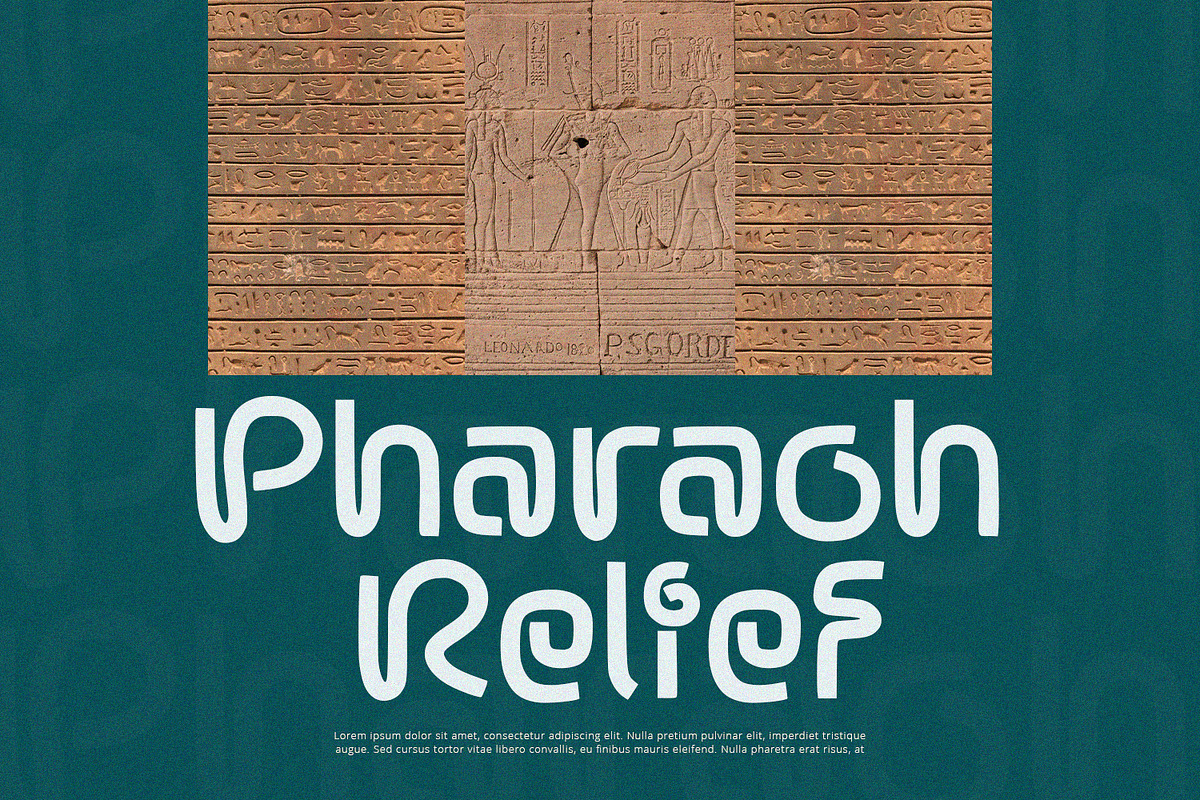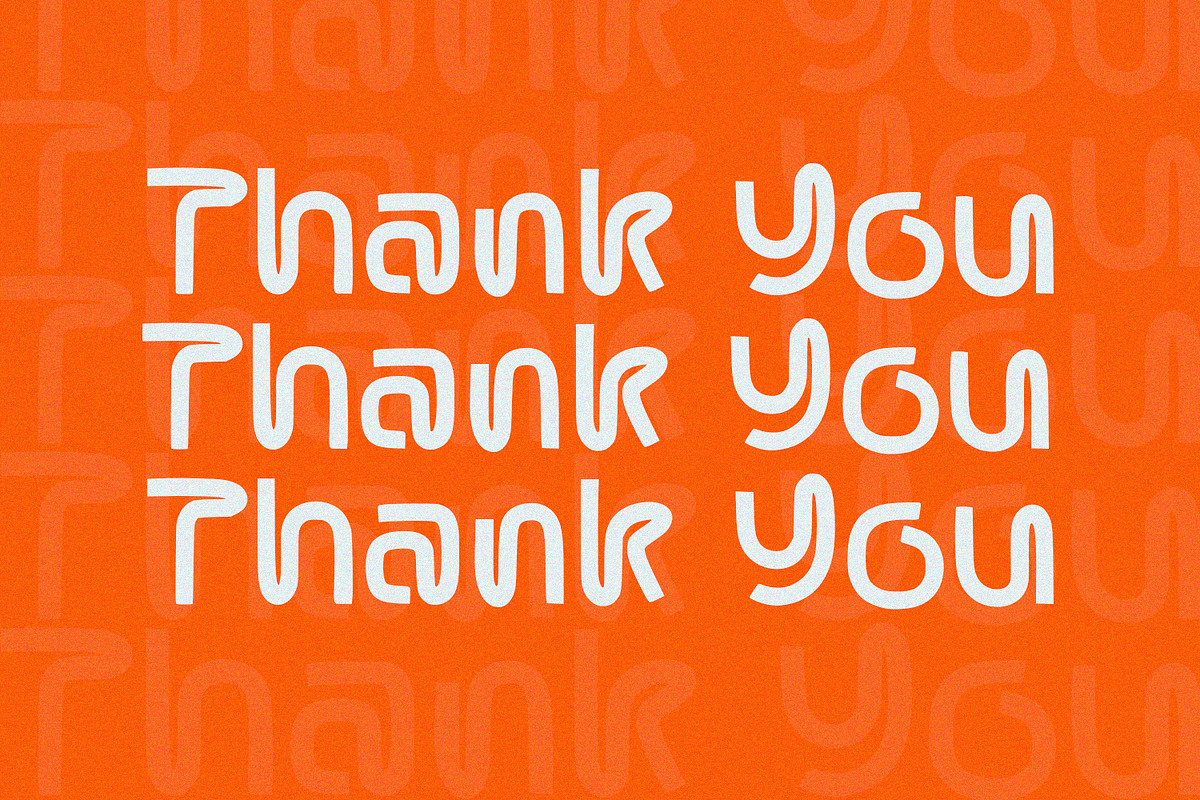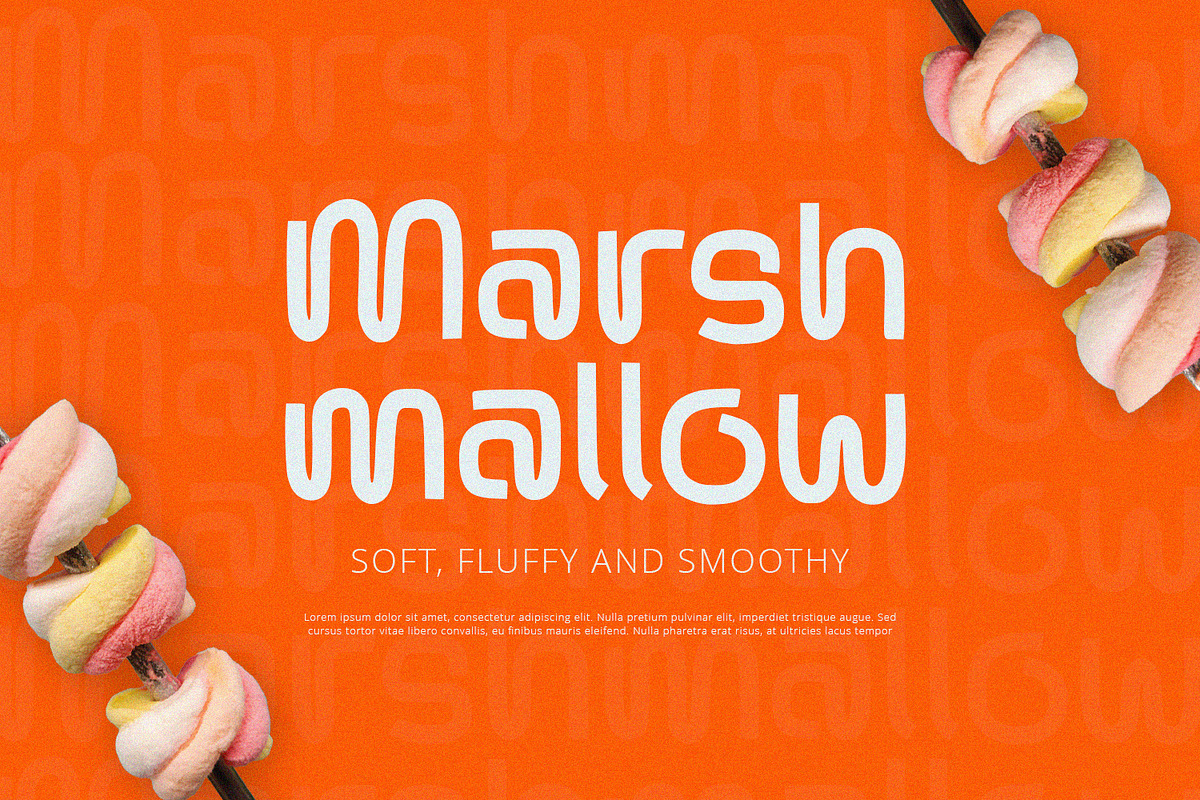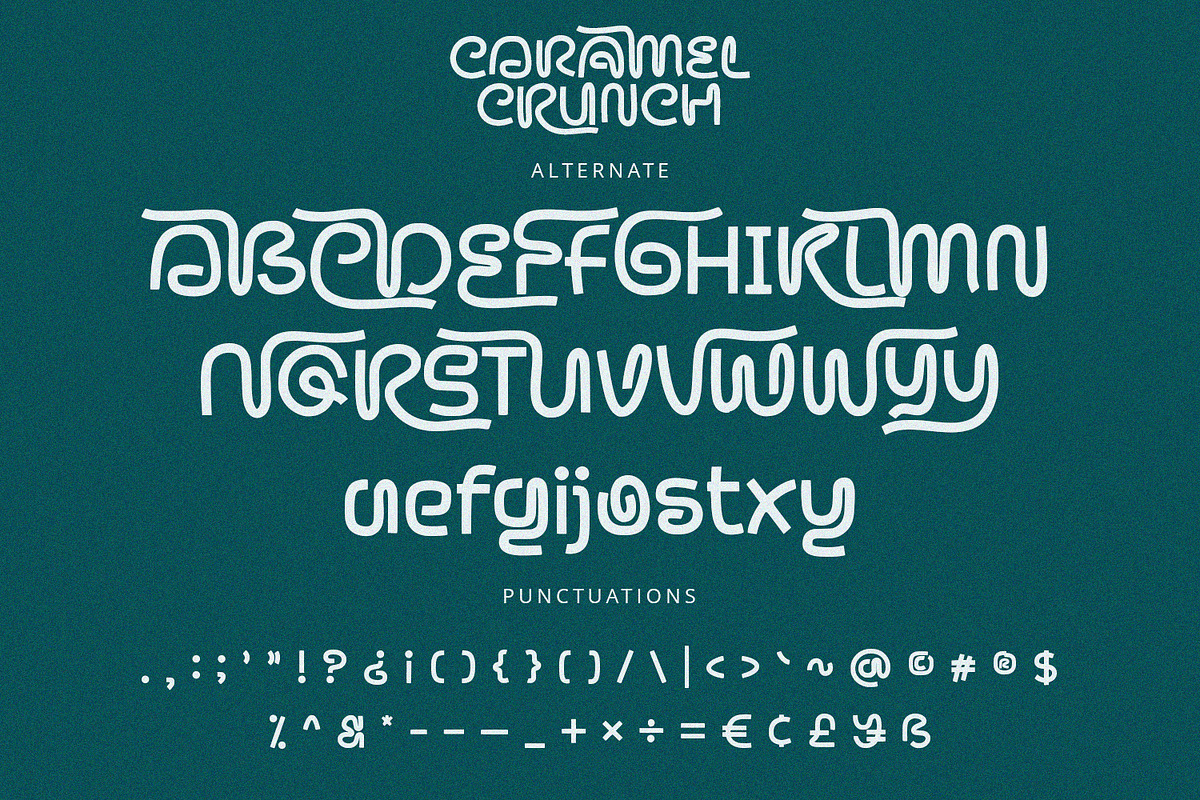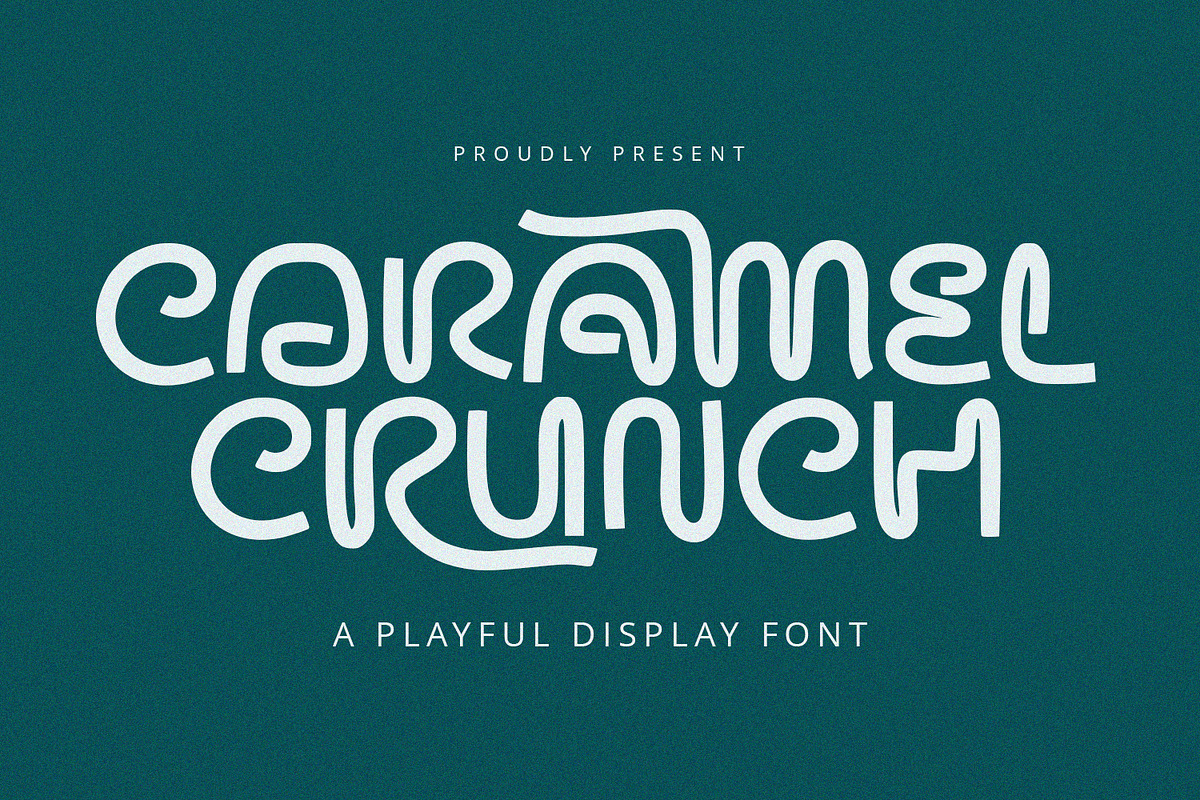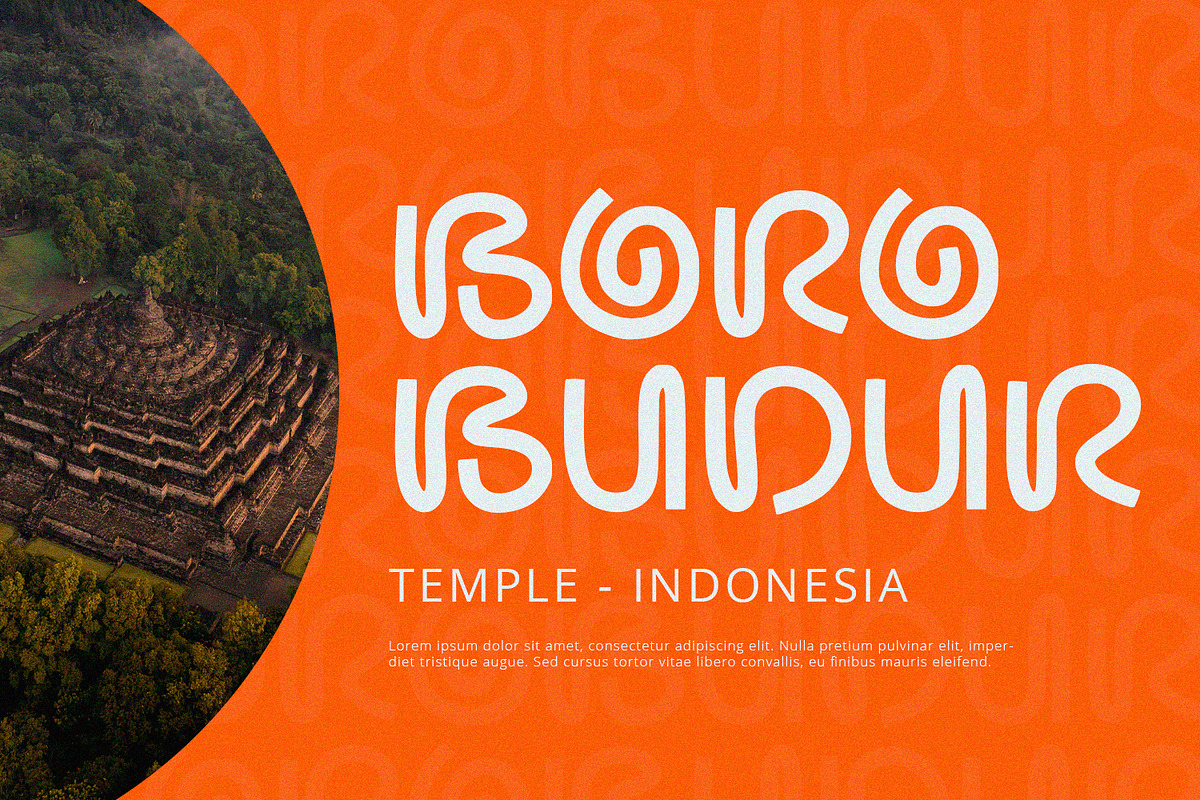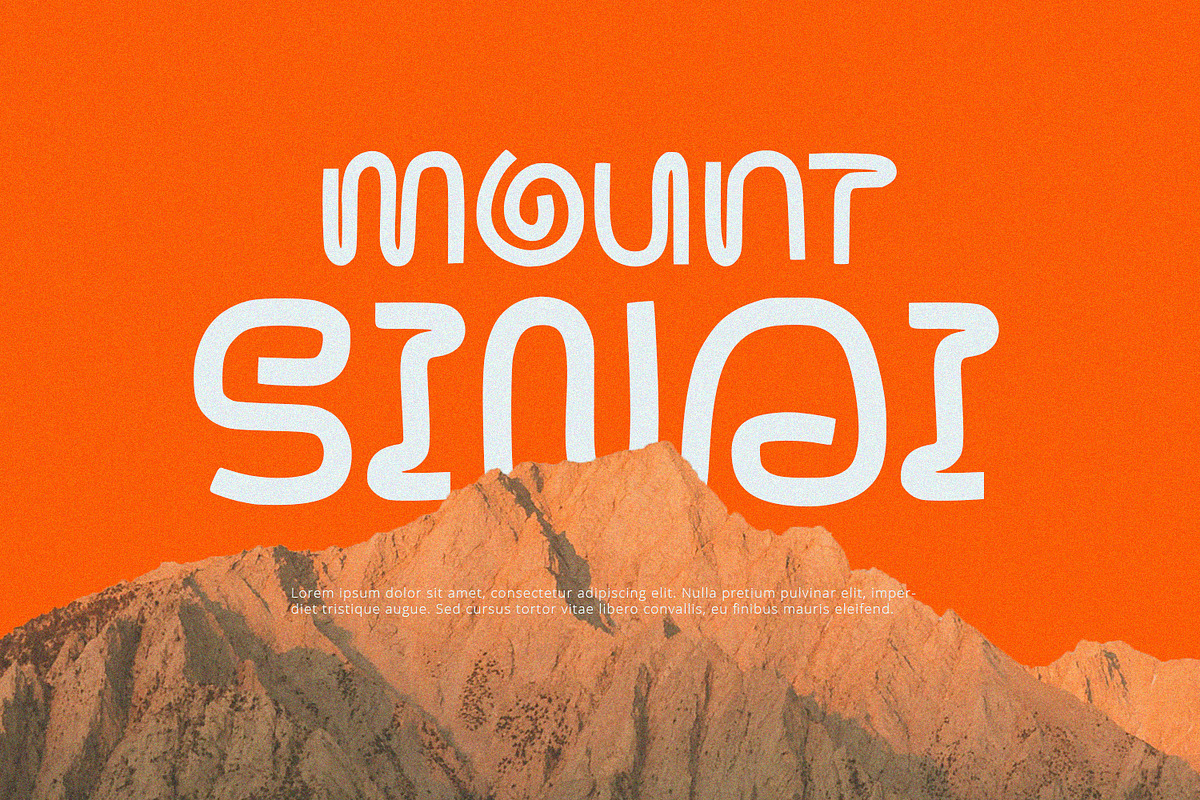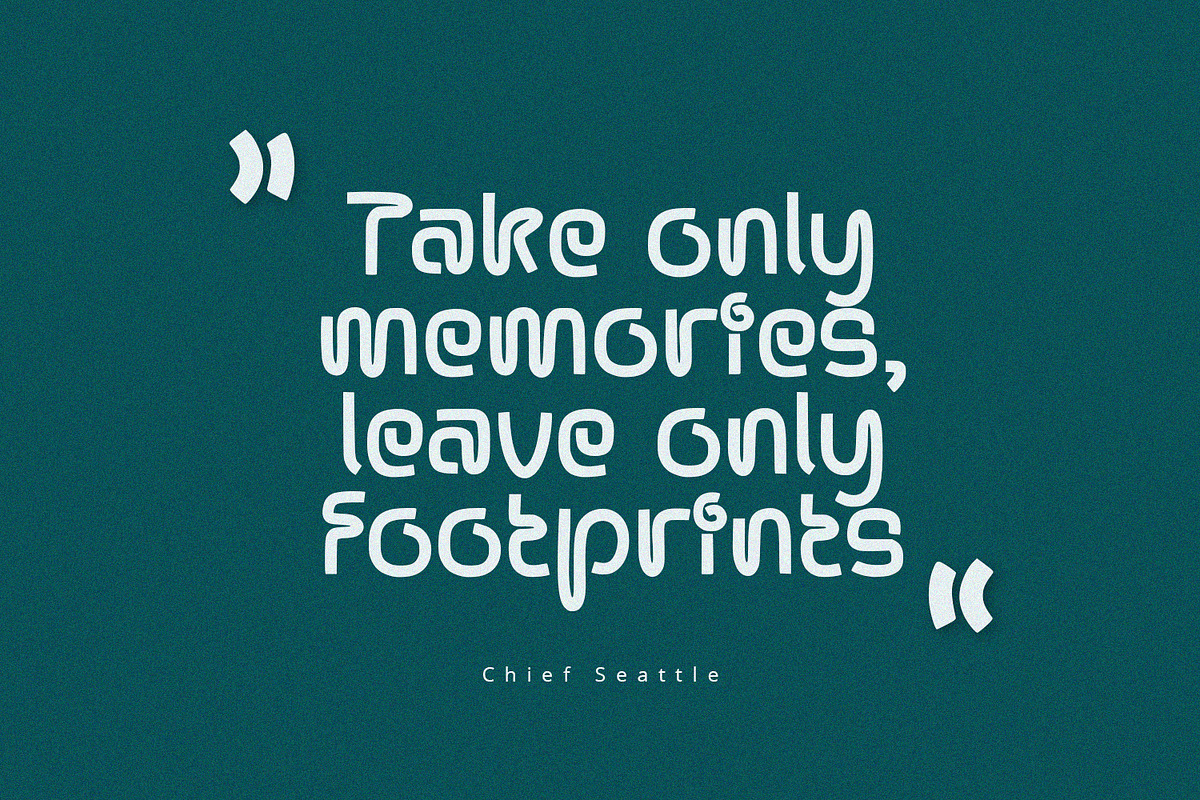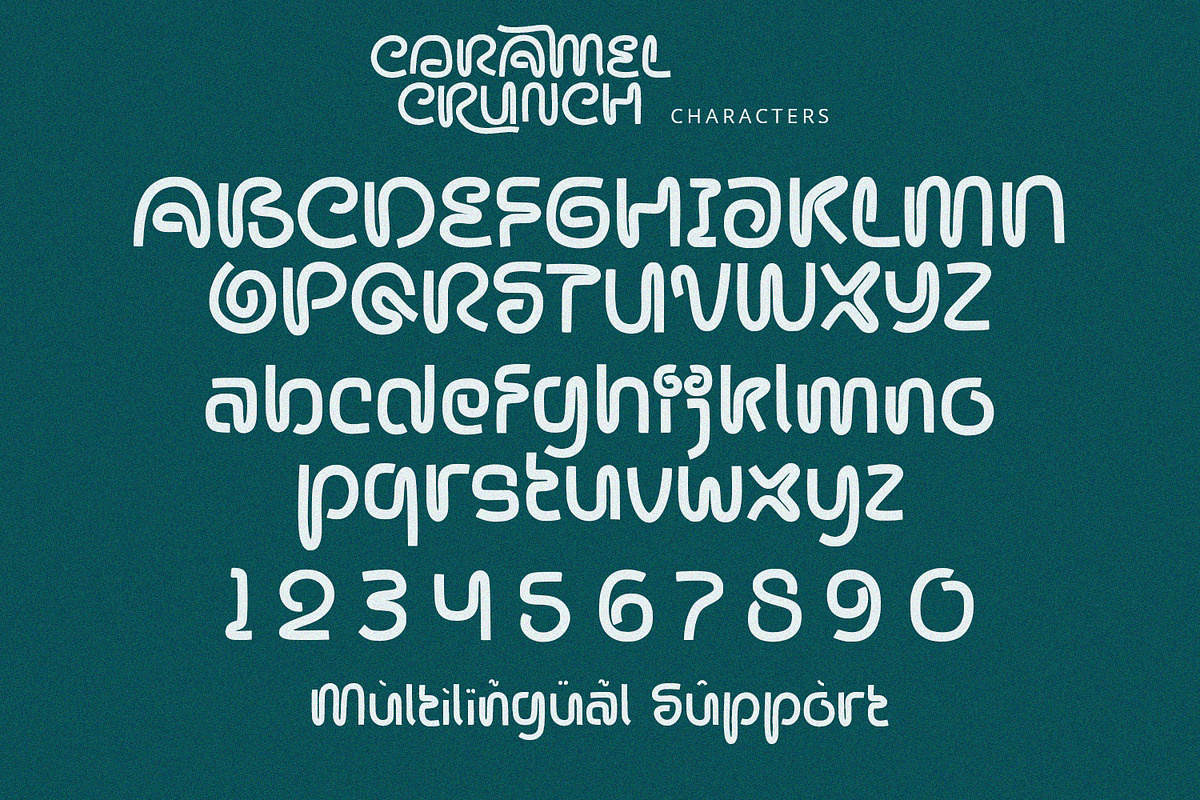
Caramel Crunch - Display Font
Caramel Crunch is display font with cute and playful feels. It will be perfectly used for Branding, Logo Design, Lettering, Logotype, Clothing, Poster, magazine, packaging, posters, shopping bags, t-shirts, book covers, photography, special events and other design project.